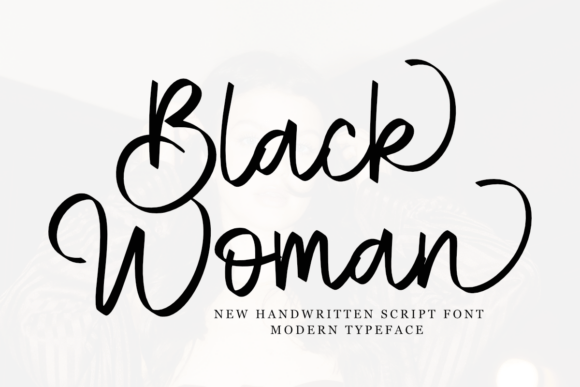
The Power of Black Woman: Unleashing Confidence and Style in Your Designs
I still remember the design project that led me to discover the Black Woman font. I was working on a branding campaign for a fashion-forward client, and I needed a font that exuded confidence, elegance, and a touch of sass. After hours of scrolling through font libraries and testing out various options, I stumbled upon Black Woman – and it was love at first sight! ✨
So, what makes Black Woman so special? Here are a few things I adore about this font:
- ✨ Confident and stylish: Black Woman has a bold, expressive flair that’s perfect for empowering messages and fashion-forward branding.
- ✅ Elegant and modern: The sweeping curves and striking personality of this font make it ideal for chic creative statements and stylish Instagram posts.
- 💁♀️ Feminine and fierce: Black Woman brings instant attitude and femininity to your work, making it perfect for creators who blend visual appeal with a powerful voice.
Of course, no font is perfect, and Black Woman has a few minor quirks:
- ⚠️ Limited use in small sizes: Due to its bold and expressive nature, Black Woman may not be the best choice for very small font sizes or body text.
- 🤔 Some letter spacing adjustments needed: Depending on the word or phrase, you may need to adjust the letter spacing to ensure optimal readability.
The Story Behind Black Woman
While the true story behind Black Woman remains a mystery, it’s easy to imagine that it was created with the intention of empowering women and celebrating their strength and beauty. Perhaps the designer, inspired by the confident and stylish women in their life, set out to create a font that would reflect those qualities. Whatever the inspiration, Black Woman is undoubtedly a font that makes a statement.
| Font Name | Blackwoman Regular Font |
| Author | Letterayu |
| What type of projects is Black Woman best suited for? | Black Woman is perfect for confident branding, fashion quotes, contemporary logos, feminine packaging, stylish Instagram posts, and empowering digital prints. |
| Is Black Woman available in different weights or styles? | While Black Woman is primarily available as a single font, some versions may offer stylistic alternates or swashes to add extra variety to your designs. |